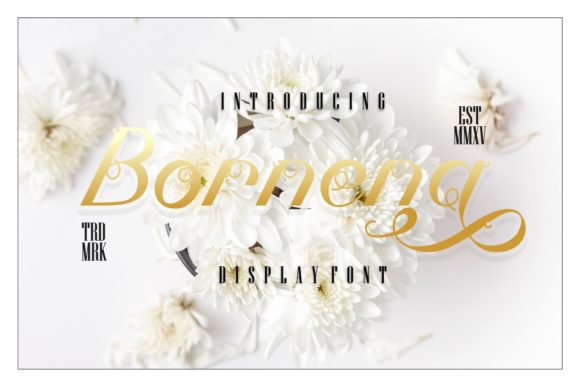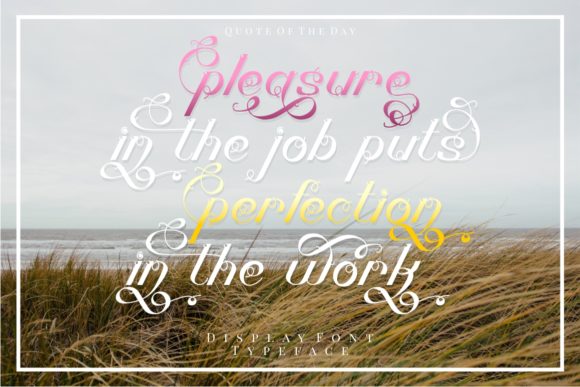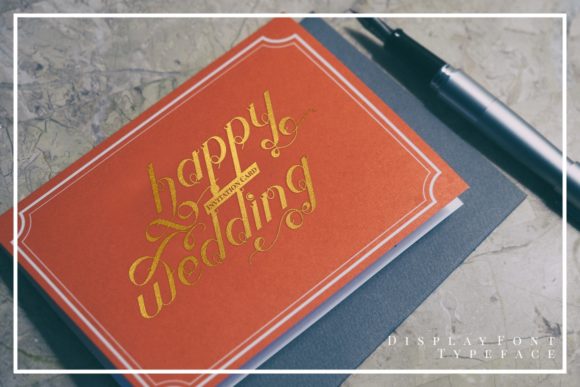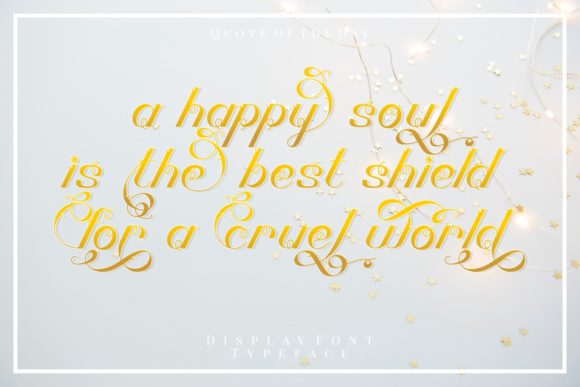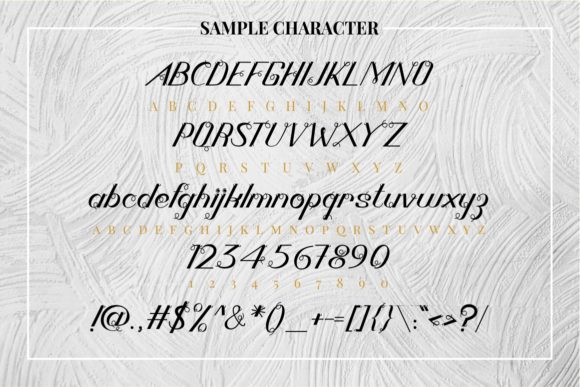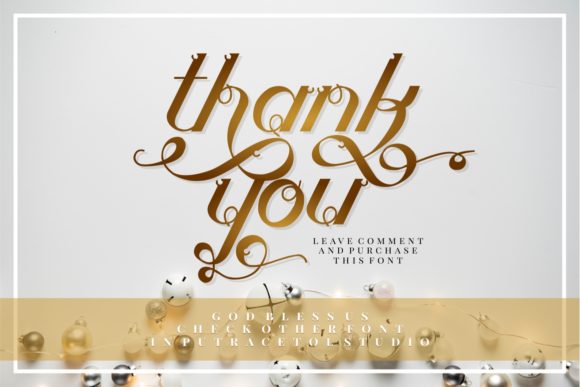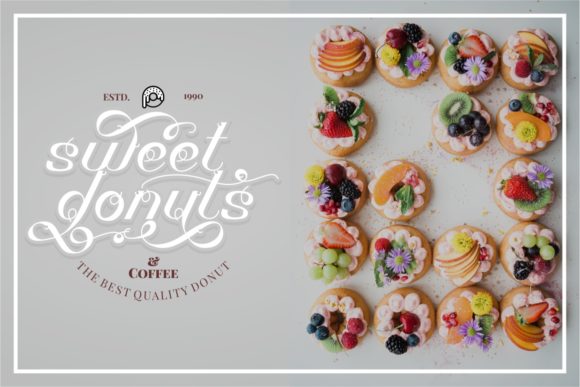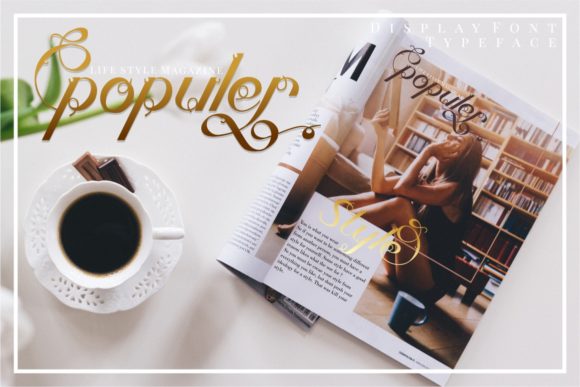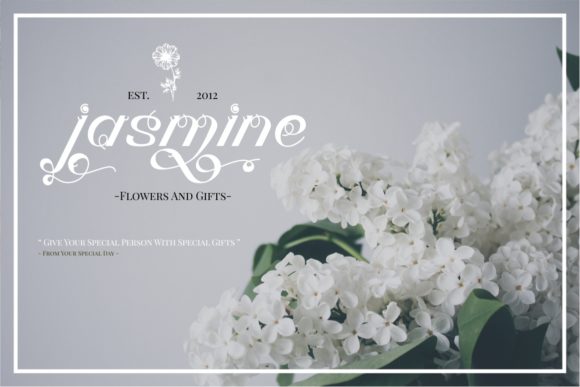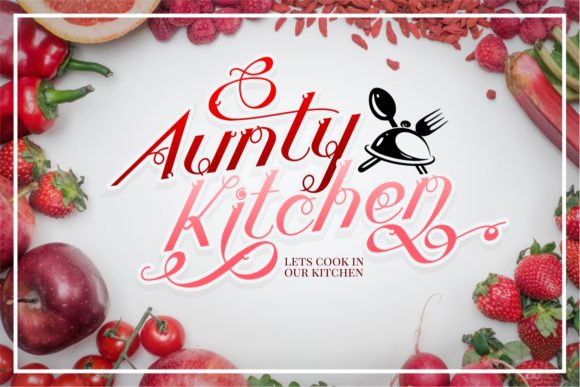
HomeScript FontsBornena Font Script Fonts Bornena Font FacebookXPinterestWhatsApp Bornena Font Poster 2 Bornena Font Poster 3 Bornena Font Poster 4 Bornena Font Poster 5 Bornena Font Poster 6 Bornena Font Poster 7 Bornena Font Poster 8 Bornena Font Poster 9 Bornena Font Poster 10 Bornena Font Poster 11 Bornena Font Poster 12 Bornena Font Poster 13 Bornena Font Poster 14 About Bornena Font Bornena is a sweet and delicious script featuring lovely swashes. It will add a delicate feel to any design idea! DOWNLOAD ON CREATIVE FABRICAThis font is sold and delivered by Creative Fabrica. Font Canyon may earn a commission if you buy through this link. People also explored Happy Go Lucky Font Sweet Youth Font Bigarus Font Don Juan Font There Brat Font Mermaid Summer Duo Font Daddy Font Daisy Flowers Font Bunny Font 401 0 TagsBornena Font Previous articleAfterglows FontNext articleRiviera Font LEAVE A REPLY Cancel reply Comment: Please enter your comment! Name:* Please enter your name here Email:* You have entered an incorrect email address! Please enter your email address here Website: Save my name, email, and website in this browser for the next time I comment. Personal Use Free Zero Hour Personal Use Free Read more about this font Retro Poster Personal Use Free Read more about this font Ernesthuge Personal Use Free Read more about this font Dolce Vita Personal Use Free Read more about this font BLOG Best Fonts for T-Shirt Design – Top 2025 Picks In 2025, t-shirt design has become more than just fashion—it's a form of self-expression. Whether you're... Top 7 Google Fonts Alternatives for Faster and Privacy-Friendly Web Design (2025) Elegant Wedding Invitation Fonts – Handwritten & Script Fonts Top 10 Handwritten Fonts That Elevate Your Designs